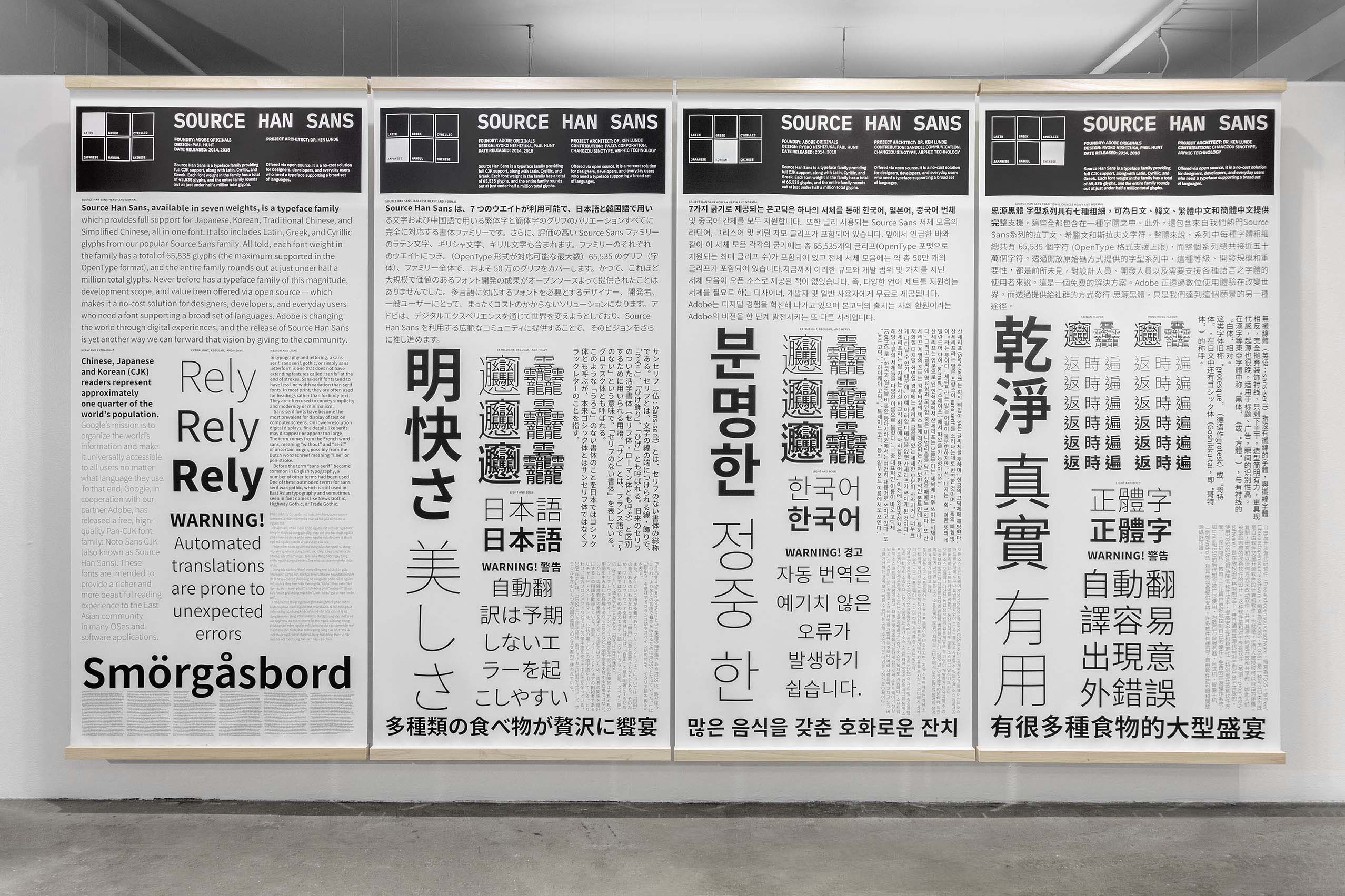
Following the tradition of Bodoni’s expansive landscape of type design, MIKE/SIERRA/TANGO highlights the value of typography in preserving diverse writing systems in a globally connected world. Scripts are living cultural artifacts, each with its own technical, formal, and historical conventions. This exhibition features a collection of contemporary multi-script typefaces produced by type foundries from around the world. Projects on display illustrate how type families can maintain their characteristics across multiple scripts while at the same time addressing the growing need for multilingual type design due to globalization and new information technologies. | Participating designers: Paul Hunt and Ryoko Nishizuka (Adobe Originals), Ken Lew (Morisawa Inc.), Nadine Chahine (Monotype), Dalton Maag, Bold Monday, Mark Jamra and Neil Patel (JamraPatel), Veronika Burian and José Scaglione (TypeTogether), Mike Abbink, Wujin Sim (Sandoll Inc.), Liron Lavi Turkenich, Hrant Papazian (TheMicroFoundry), Fabrizio Schiavi, Yury Ostromentsky and Ilya Ruderman (Type.Today). |